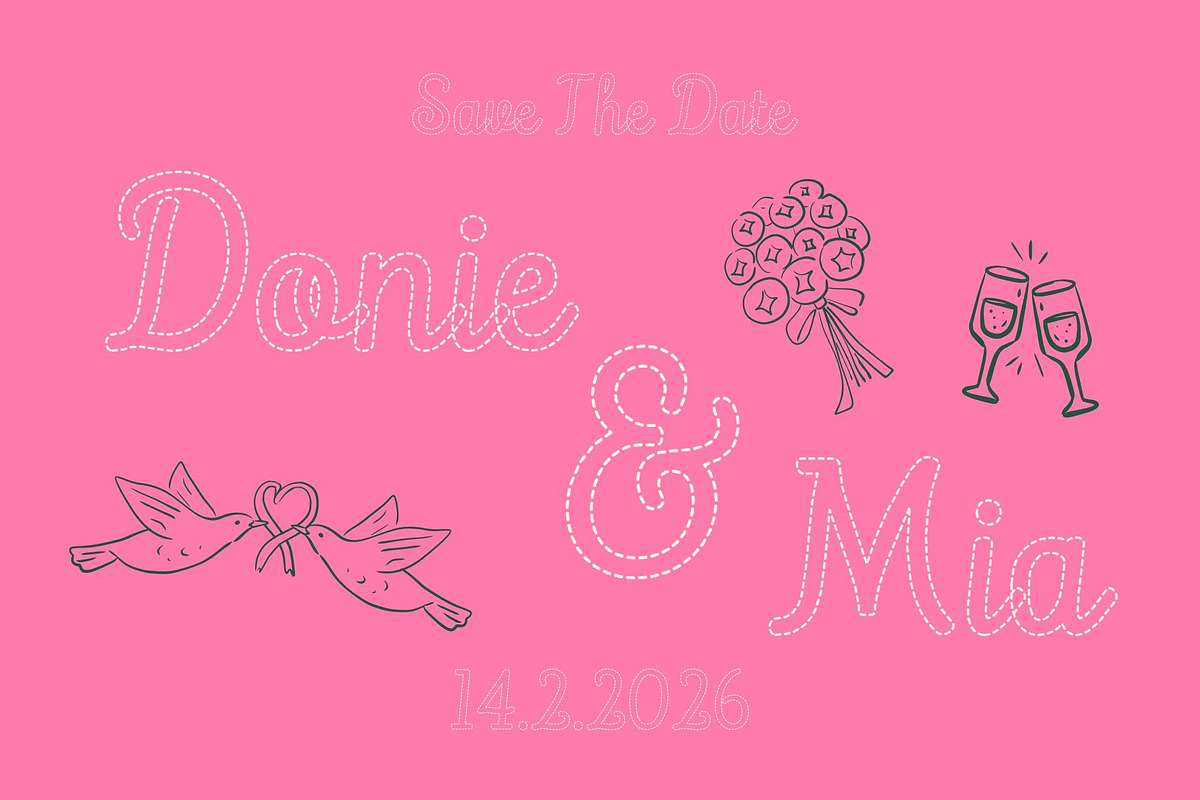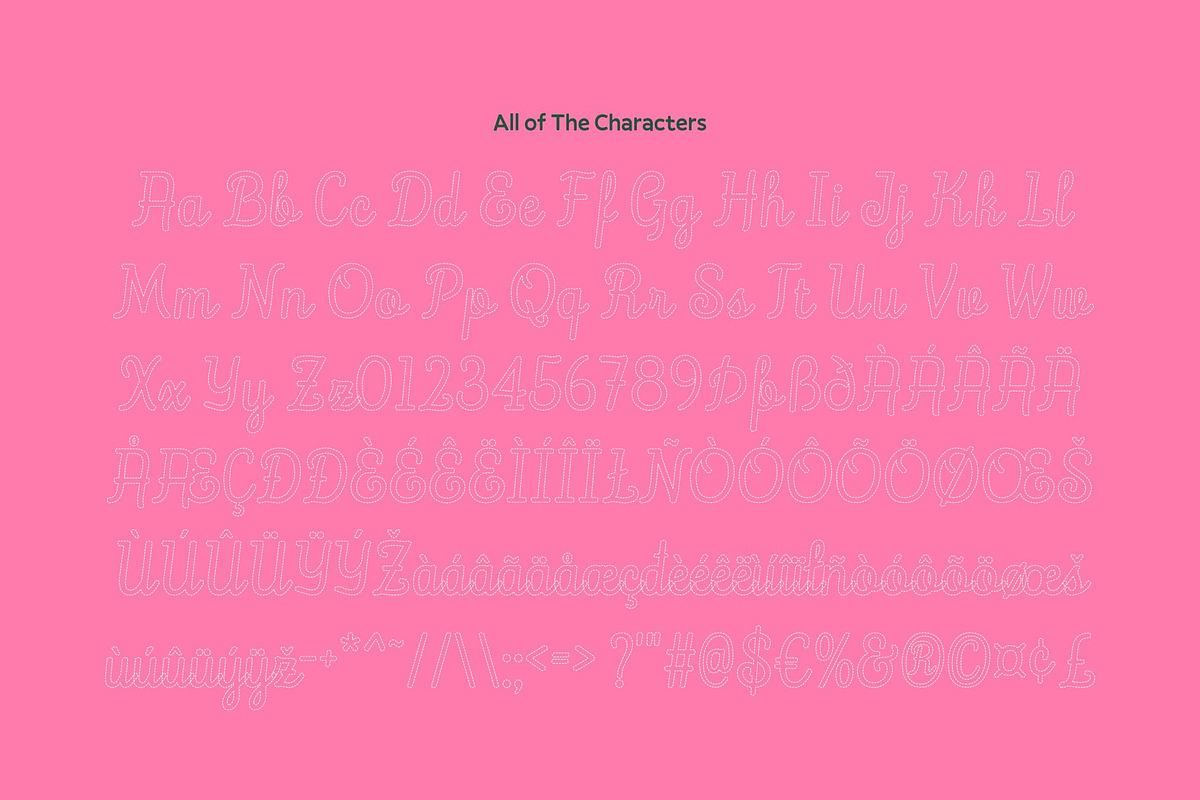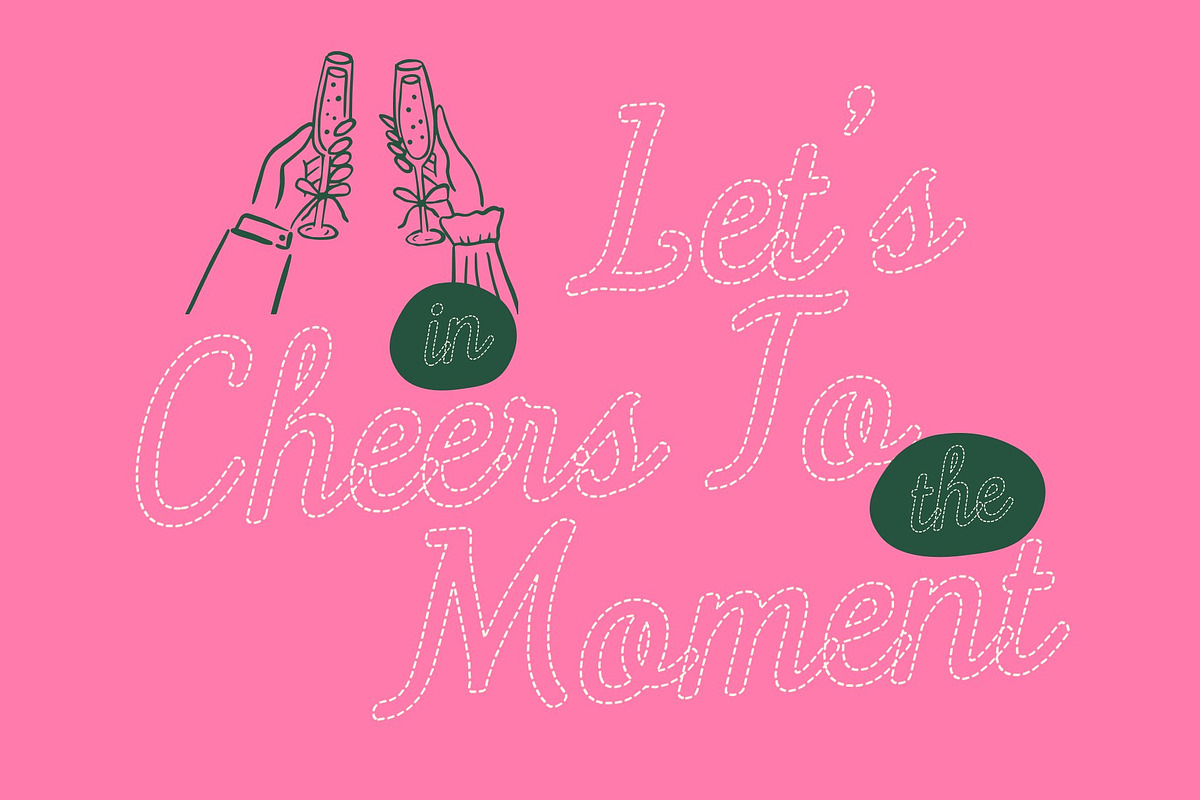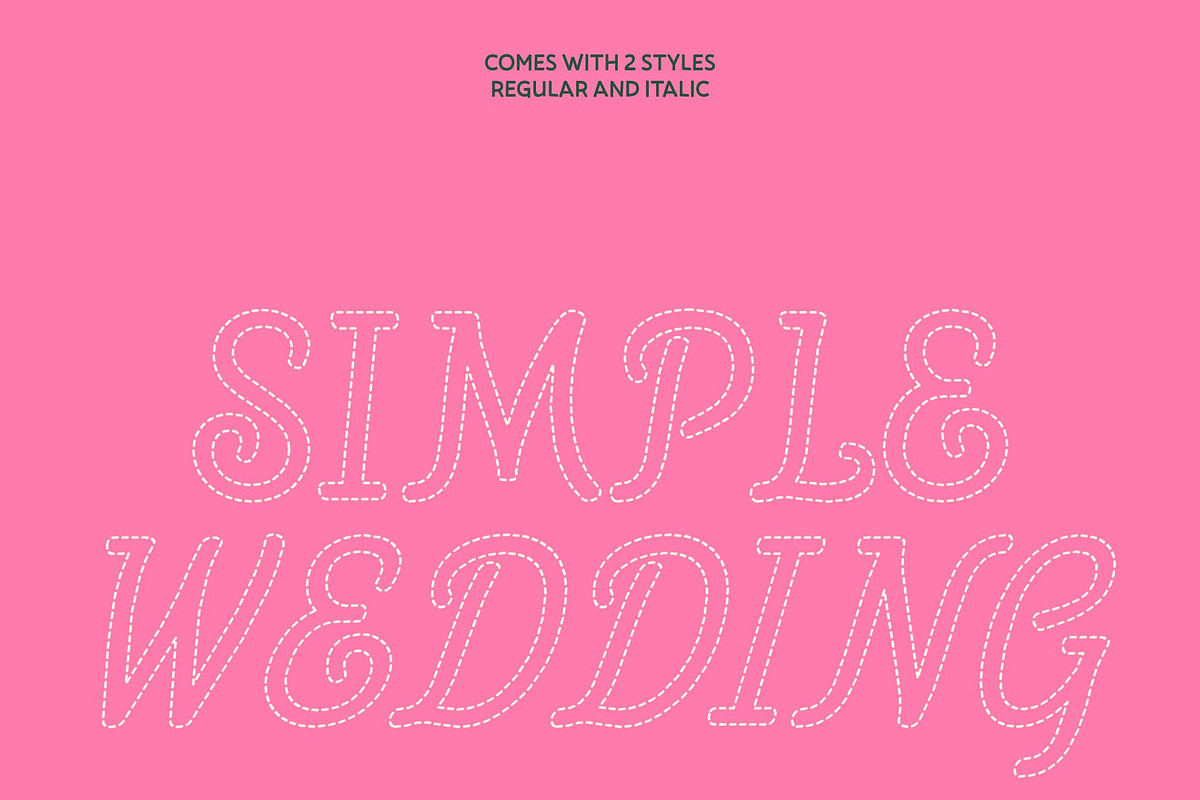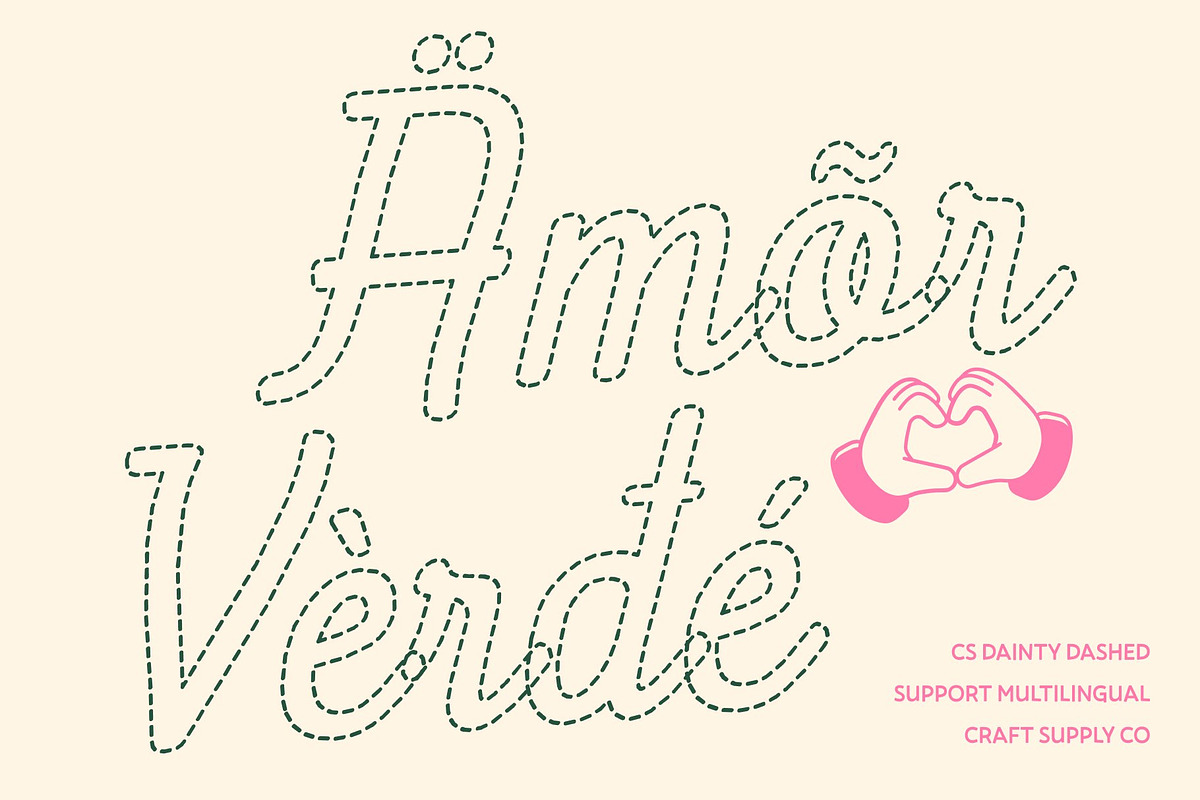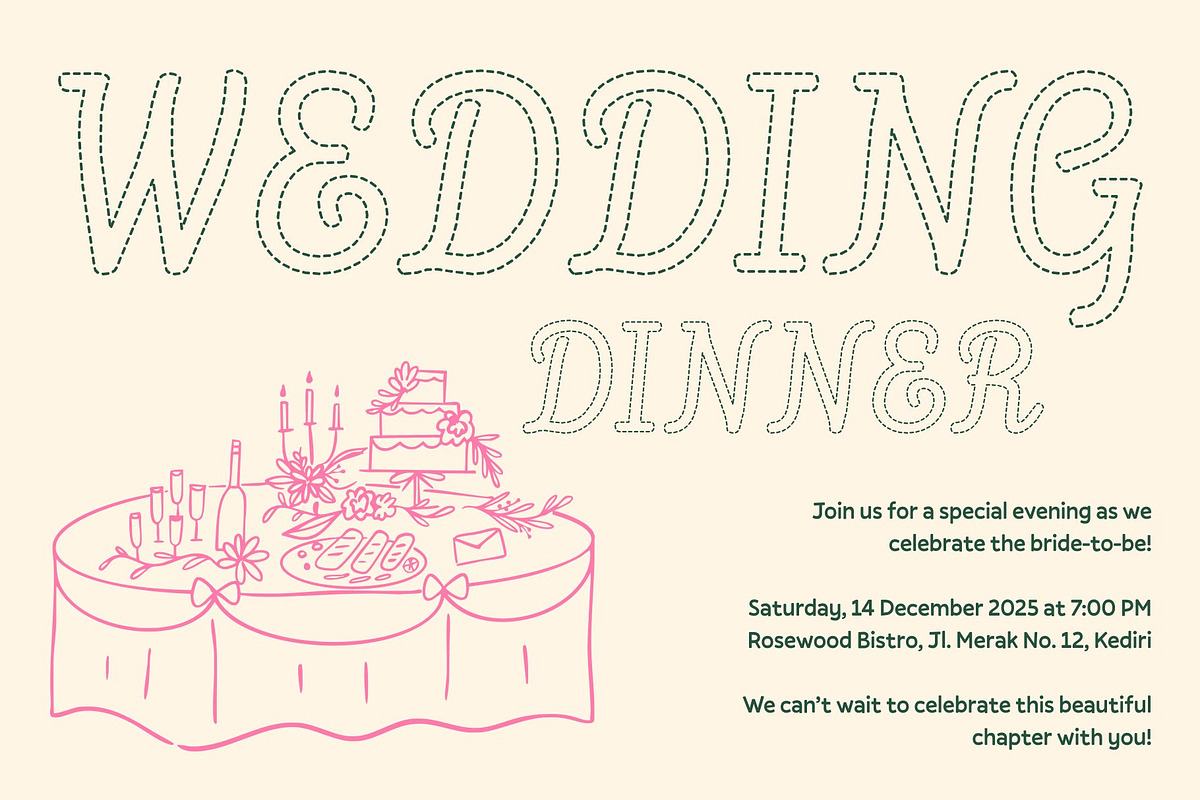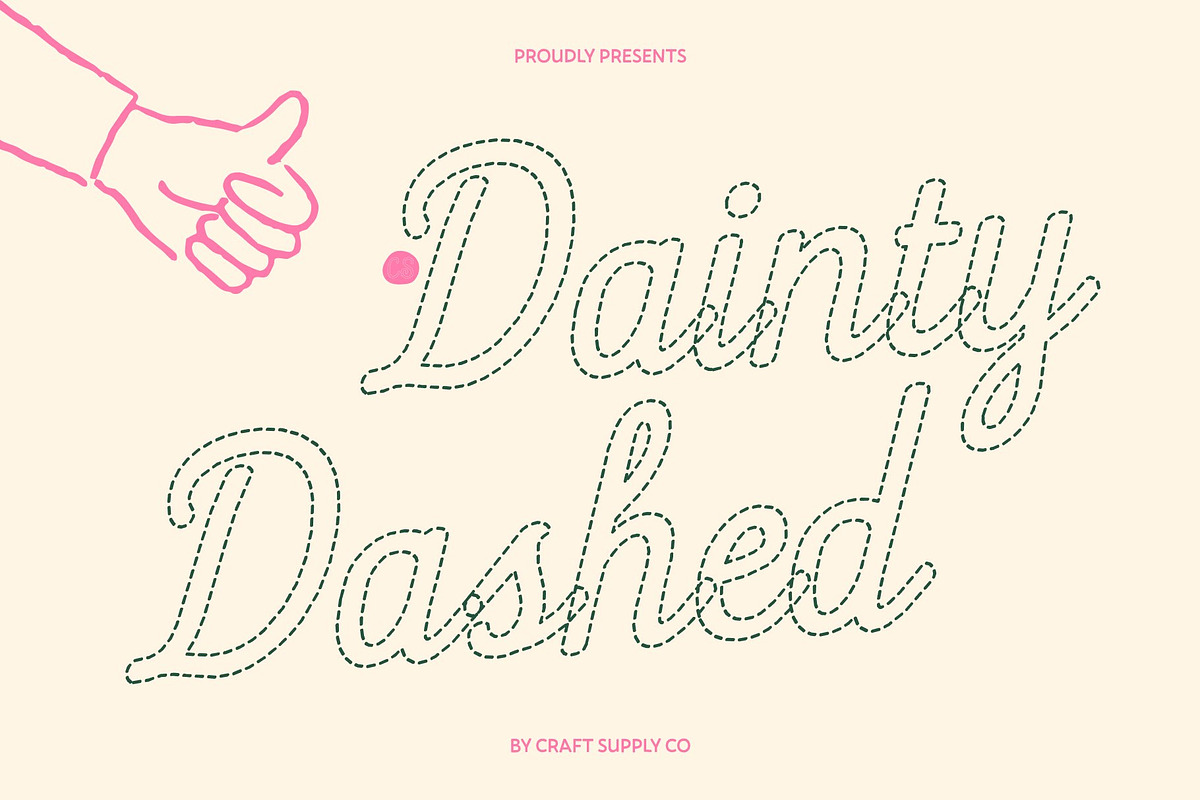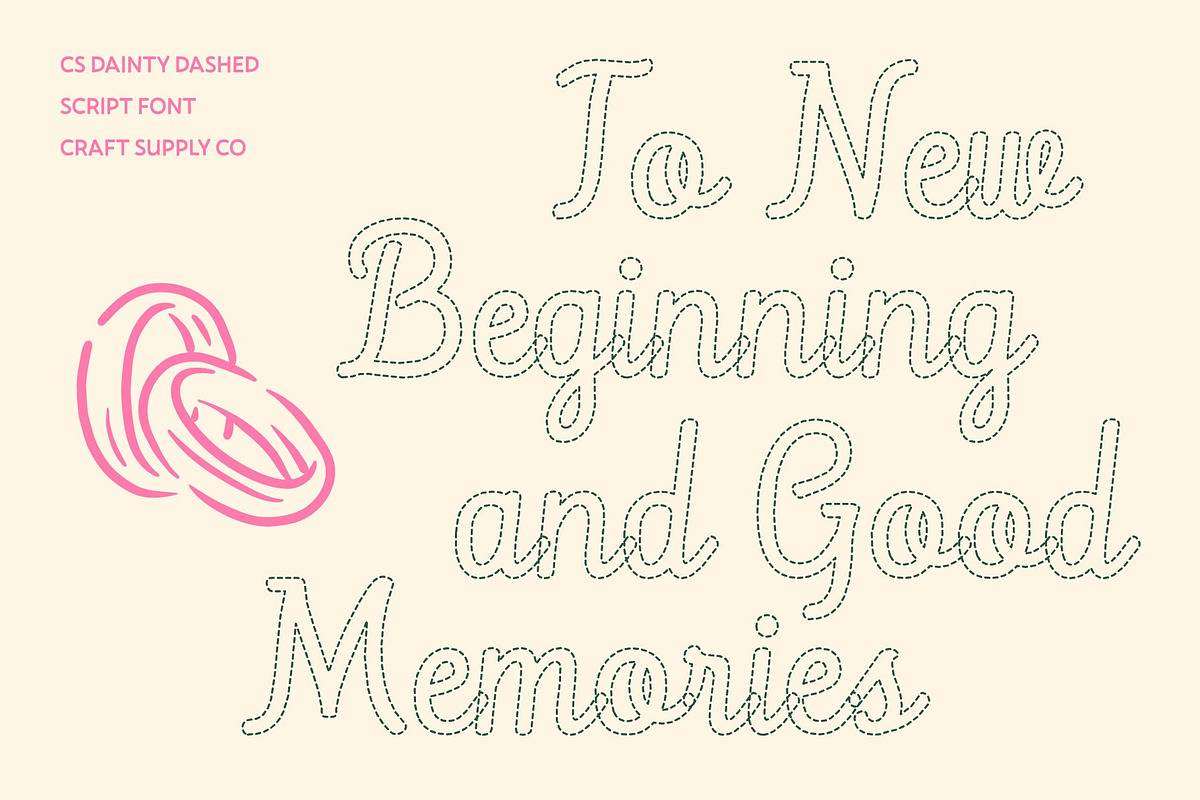
CS Dainty Dashed
CS Dainty Dashed – Script Font: Where Soft Beauty Meets Modern Simplicity
Contemporary, Clean, and Slim Script Style This is a modern script font defined by its clean, slim proportions and contemporary elegance. Inspired by refined handwritten lettering, it maintains a graceful flow while embracing a minimalist aesthetic. The overall structure feels light, stylish, and approachable perfect for feminine-focused designs that value simplicity and modern charm.
Dashed Strokes with Elegant Handwritten Flow The signature feature of lies in its dashed construction. Each letter is formed from gently broken strokes rather than solid continuous lines, creating a subtle rhythm that feels airy and artistic. This dashed style enhances the handwritten quality, giving the font a relaxed, creative feel while preserving clarity and smooth readability.
Feminine, Cute, and Gently Expressive Combining modern simplicity with soft decorative detail, delivers a feminine and charming personality. The dashed strokes add a playful sweetness without overwhelming the design, making the font feel cute, elegant, and visually engaging. It’s ideal for projects that aim to feel warm, personal, and aesthetically pleasing.
Perfect for Trendy and Stylish Creative Projects This script font shines in beauty branding, wedding stationery, lifestyle packaging, social media graphics, quotes, and logo designs. The dashed lettering adds personality and softness, transforming text into a stylish visual element. This font brings a modern romantic touch to your work making every design feel light, trendy, and full of gentle character.
CS Dainty Dashed Regular
CS Dainty Dashed Italic